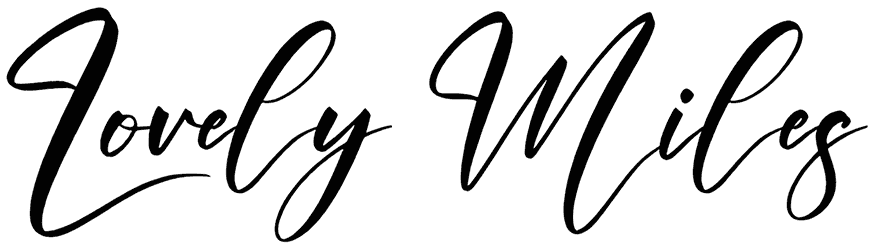
Lovely Miles Font
Lovely Miles is a calligraphy font with a feminine design that can convey your message in the most elegant way possible. This love font has narrow letters with two styles that are a bit hard to read.
However, they can give them a human identity by being placed on stationery packages, tattoos, and bags. Using this font, you no longer need to start your design from scratch, but you have a solid base on which you can build any design.